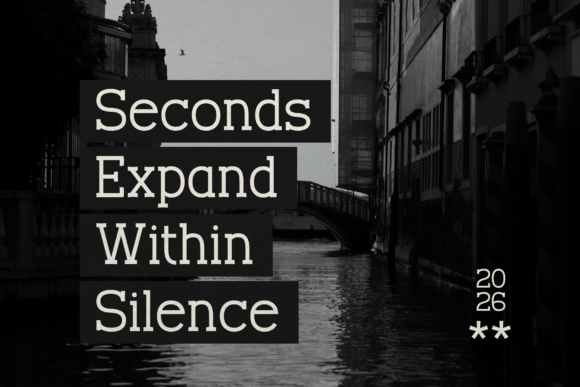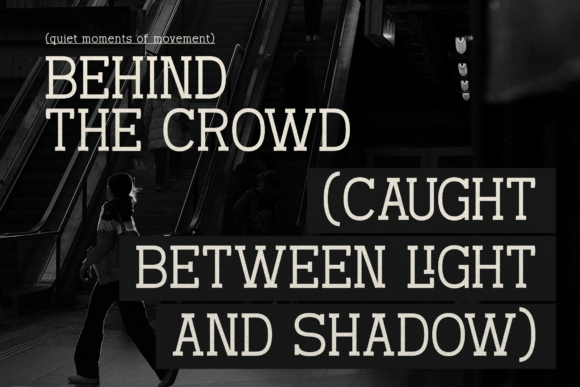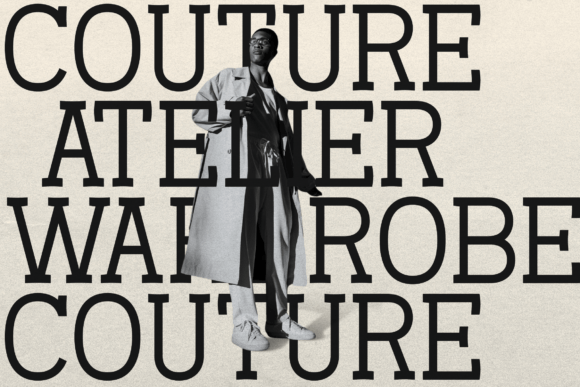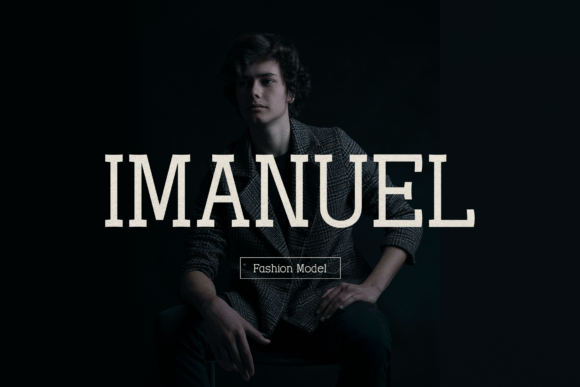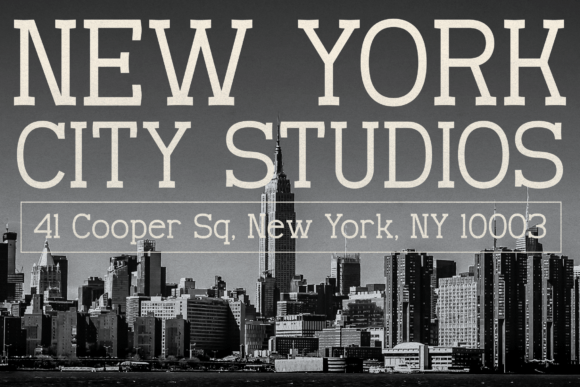
Unleash the Power of Corden Narator Font: A Robust Slab-Serif Typeface for Impact and Clarity
Are you looking for a font that can help you make a statement with your design? Look no further than Corden Narator, a robust slab-serif typeface designed to command attention while maintaining an approachable, storytelling quality. With its sturdy, rectangular serifs and balanced letterforms, this font is perfect for headlines that need to feel established, reliable, and bold.
Clean Geometry and Generous Proportions
One of the standout features of Corden Narator is its clean geometry and generous proportions. The font’s design is characterized by a sense of simplicity and elegance, making it easy to read and understand. The generous proportions of the letters ensure that the font remains clear and legible, even at smaller sizes. This makes Corden Narator a versatile font that can be used for a wide range of design applications, from cinematic titles and impactful posters to timeless brand identities.
Bridging the Gap between Classic Editorial Authority and Modern Industrial Design
Corden Narator is a font that bridges the gap between classic editorial authority and modern industrial design. The font’s slab-serif design gives it a classic, timeless feel that is reminiscent of traditional editorial design. At the same time, the font’s clean geometry and modern aesthetic make it feel fresh and contemporary. This makes Corden Narator a font that can be used to create designs that feel both established and modern.
Corden Narator is a font that is perfect for designers and crafters who want to create designs that make a statement. The font’s robust design and attention-grabbing quality make it ideal for use in a wide range of design applications, from print and digital media to branding and advertising. Whether you are creating a logo, a poster, or a website, Corden Narator is a font that can help you achieve your design goals.
Key Features of Corden Narator Font
- Robust slab-serif design: Corden Narator features a sturdy, rectangular serif design that commands attention and adds impact to your designs.
- Clean geometry: The font’s clean geometry and simple design make it easy to read and understand.
- Generous proportions: The font’s generous proportions ensure that it remains clear and legible, even at smaller sizes.
- Balanced letterforms: The font’s balanced letterforms add to its approachable, storytelling quality.
- Versatile: Corden Narator is a versatile font that can be used for a wide range of design applications.
How to Use Corden Narator Font
Corden Narator is a font that can be used in a wide range of design applications. Here are a few ideas to get you started:
- Cinematic titles: Use Corden Narator to create bold, attention-grabbing titles for your film or video projects.
- Impactful posters: Create eye-catching posters that make a statement with Corden Narator.
- Timeless brand identities: Use Corden Narator to create a strong, professional brand identity that will stand the test of time.
- Print and digital media: Use Corden Narator in your print and digital media projects, such as brochures, flyers, and website headers.
Corden Narator is a robust slab-serif typeface that is designed to command attention while maintaining an approachable, storytelling quality. With its clean geometry, generous proportions, and balanced letterforms, this font is perfect for designers and crafters who want to create designs that make a statement. Whether you are creating cinematic titles, impactful posters, or a timeless brand identity, Corden Narator is a font that can help you achieve your design goals.